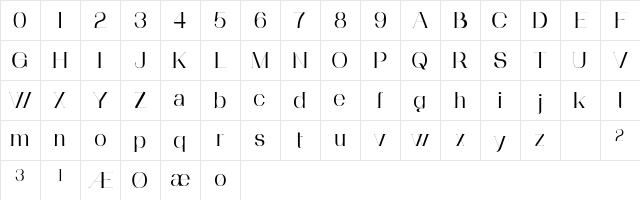
Complete Rachelasti Personal Use Regular glyph index. Displaying only characters natively supported by Rachelasti Personal Use Regular font.
Rachelasti Personal Use is a composed and adaptable typeface that performs quietly and consistently across a wide range of design contexts.